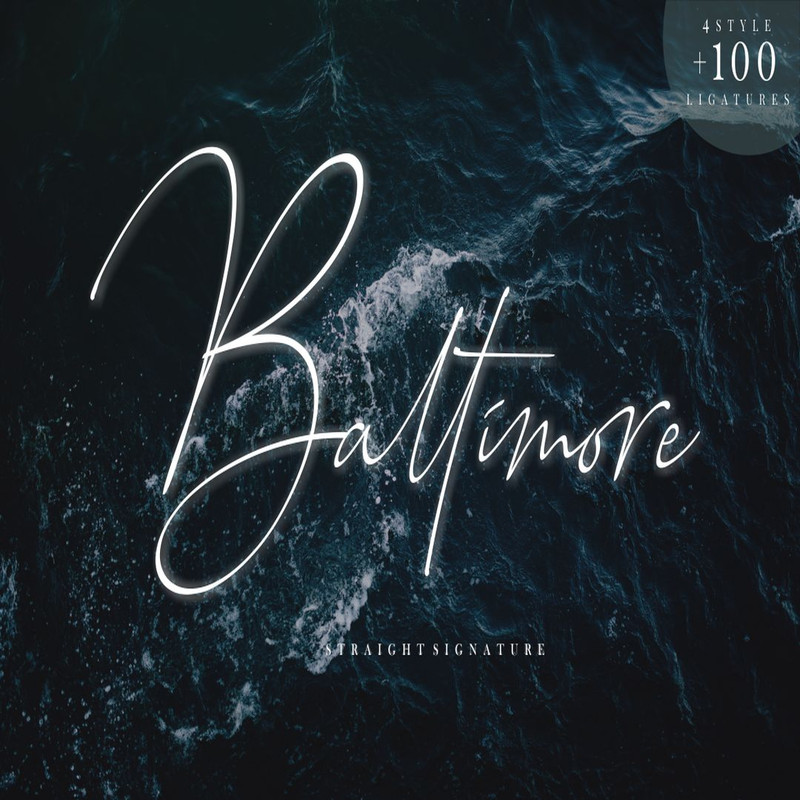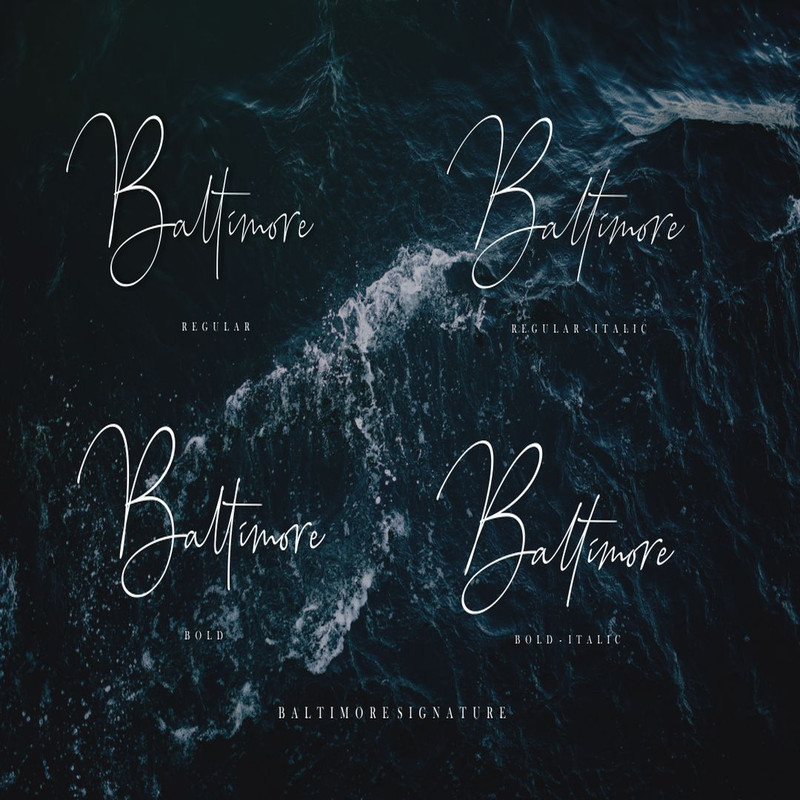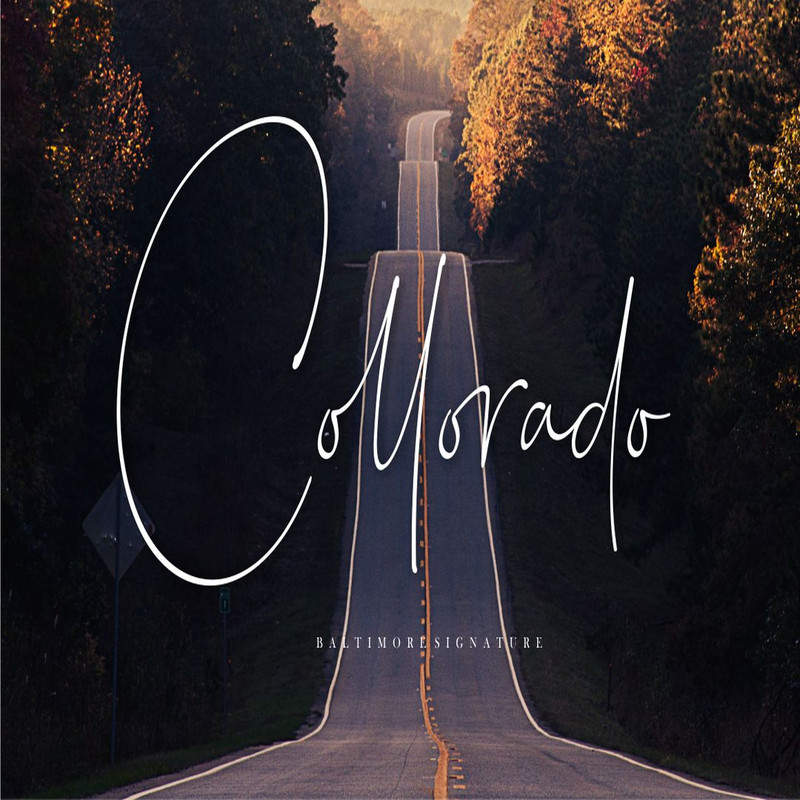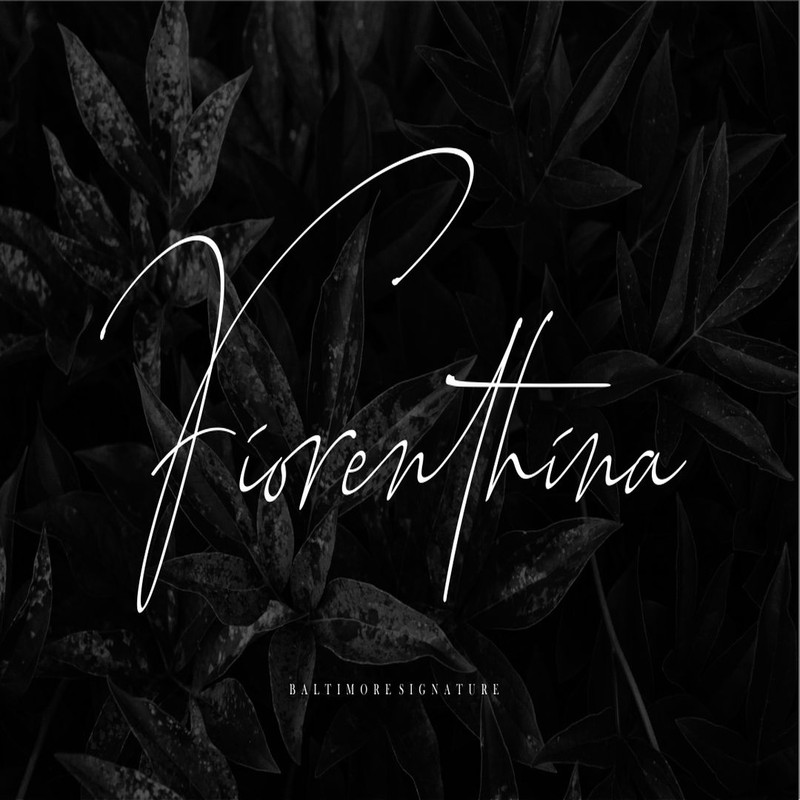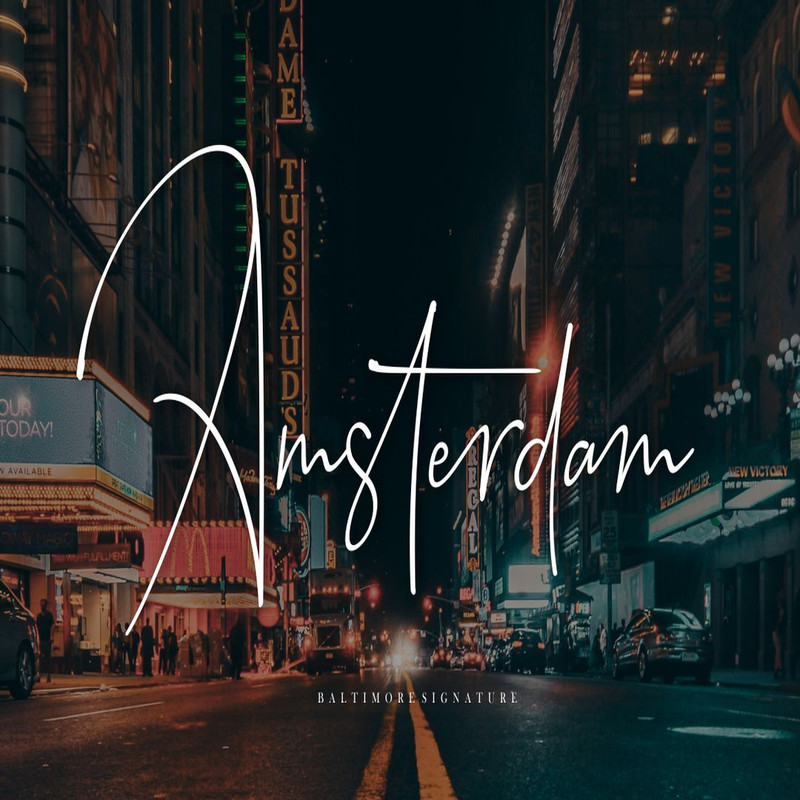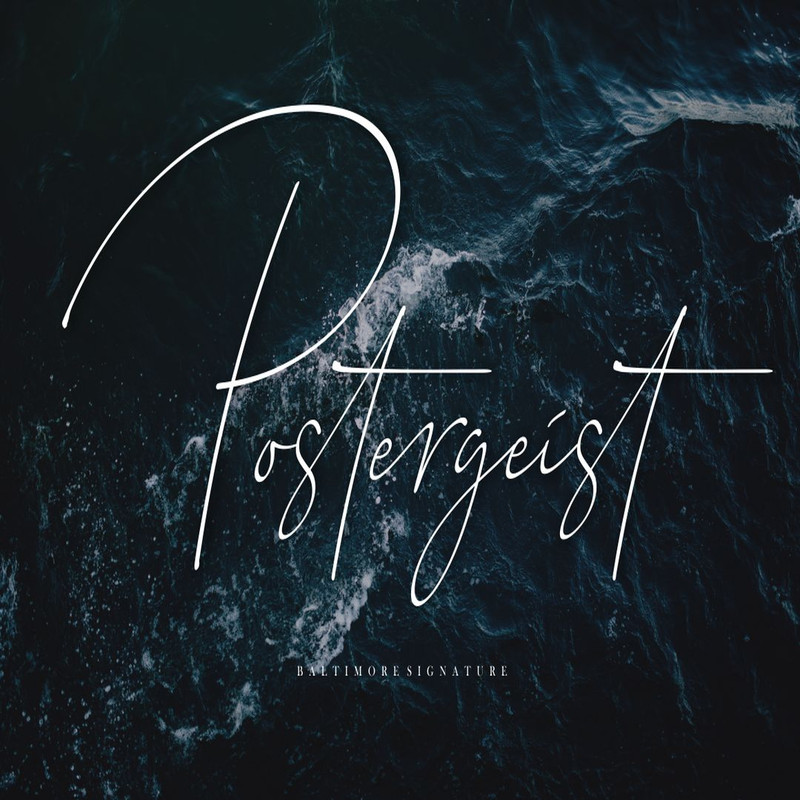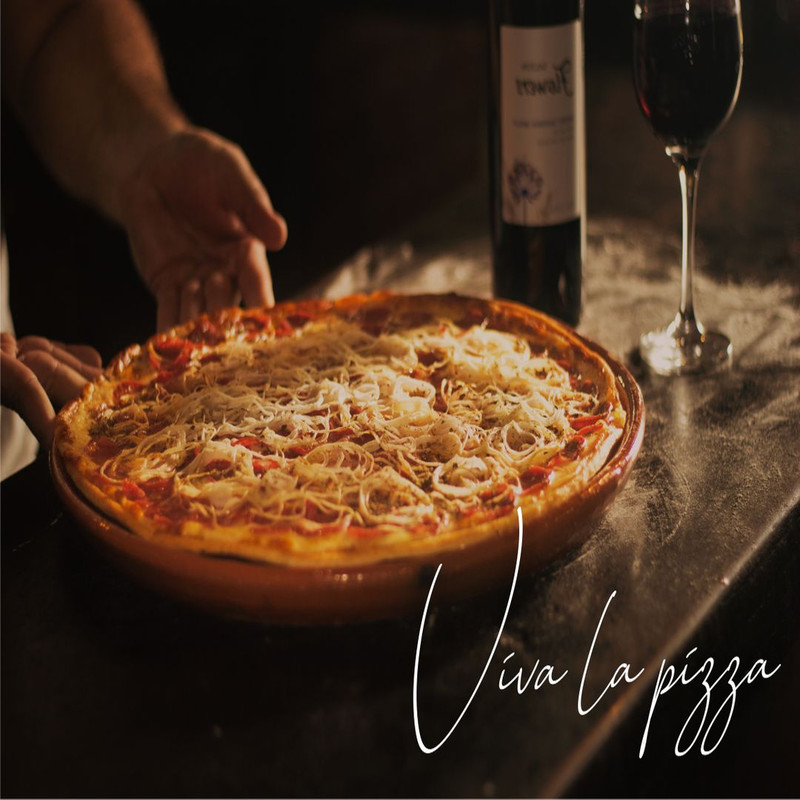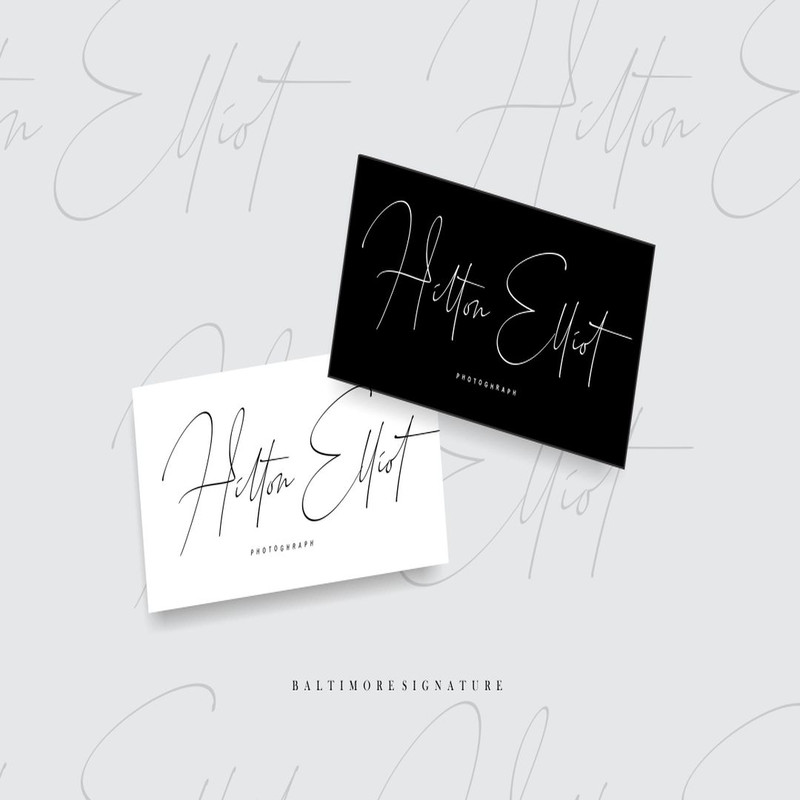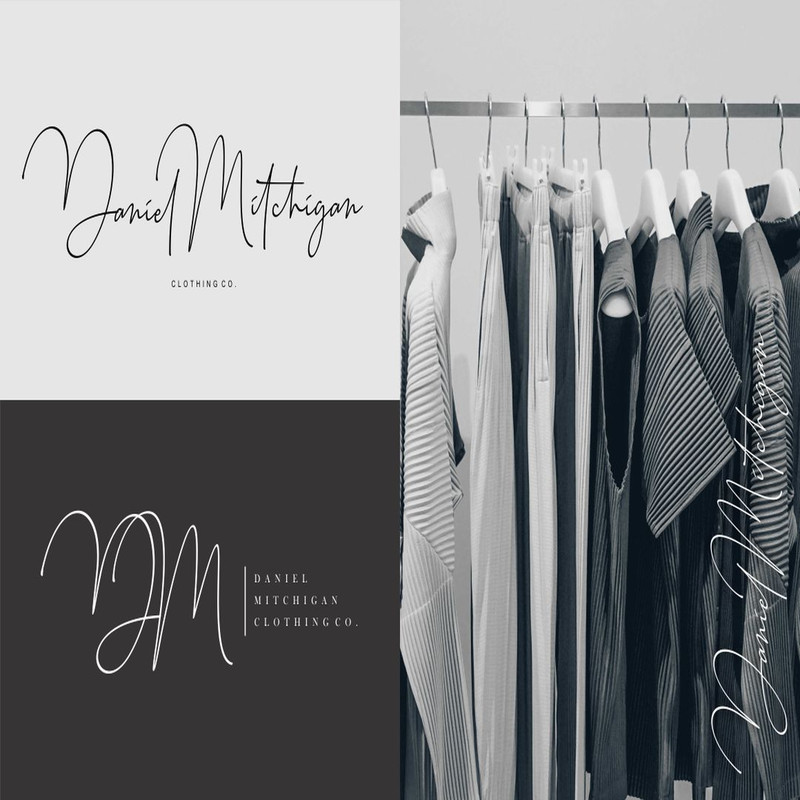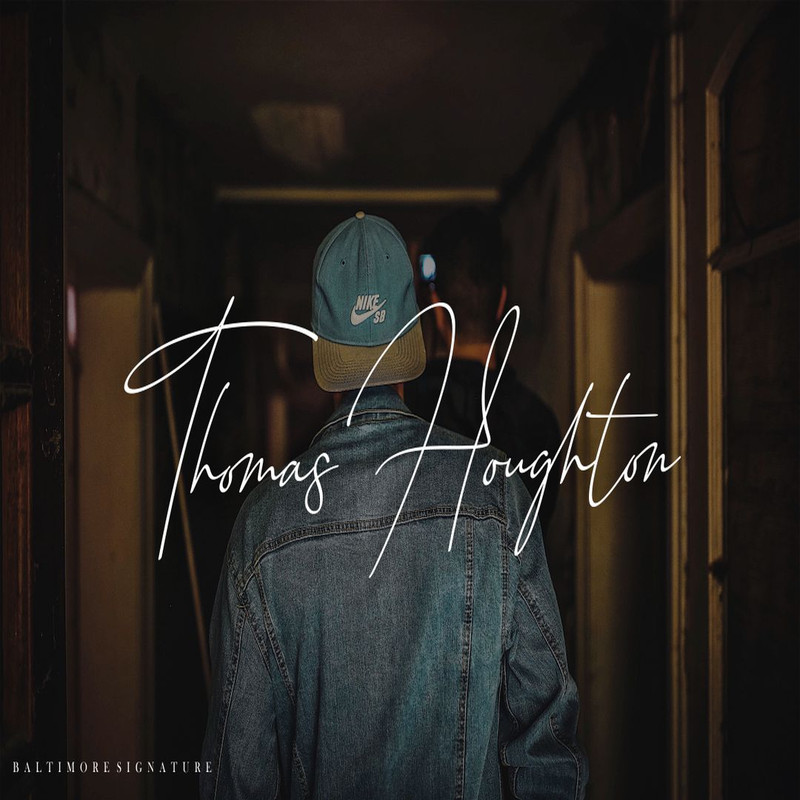
Introuding Baltimore Family Font
The Baltimore is a modern signature font family which comes in four styles: regular, bold, regular italic, and bold italic. Its elegant lines make it perfect for personal branding.
Introuding Baltimore Family Font
The Baltimore is a modern signature font family which comes in four styles: regular, bold, regular italic, and bold italic. Its elegant lines make it perfect for personal branding.
Introuding Baltimore Family Font
The Baltimore is a modern signature font family which comes in four styles: regular, bold, regular italic, and bold italic. Its elegant lines make it perfect for personal branding.
Introuding Baltimore Family Font
The Baltimore is a modern signature font family which comes in four styles: regular, bold, regular italic, and bold italic. Its elegant lines make it perfect for personal branding.